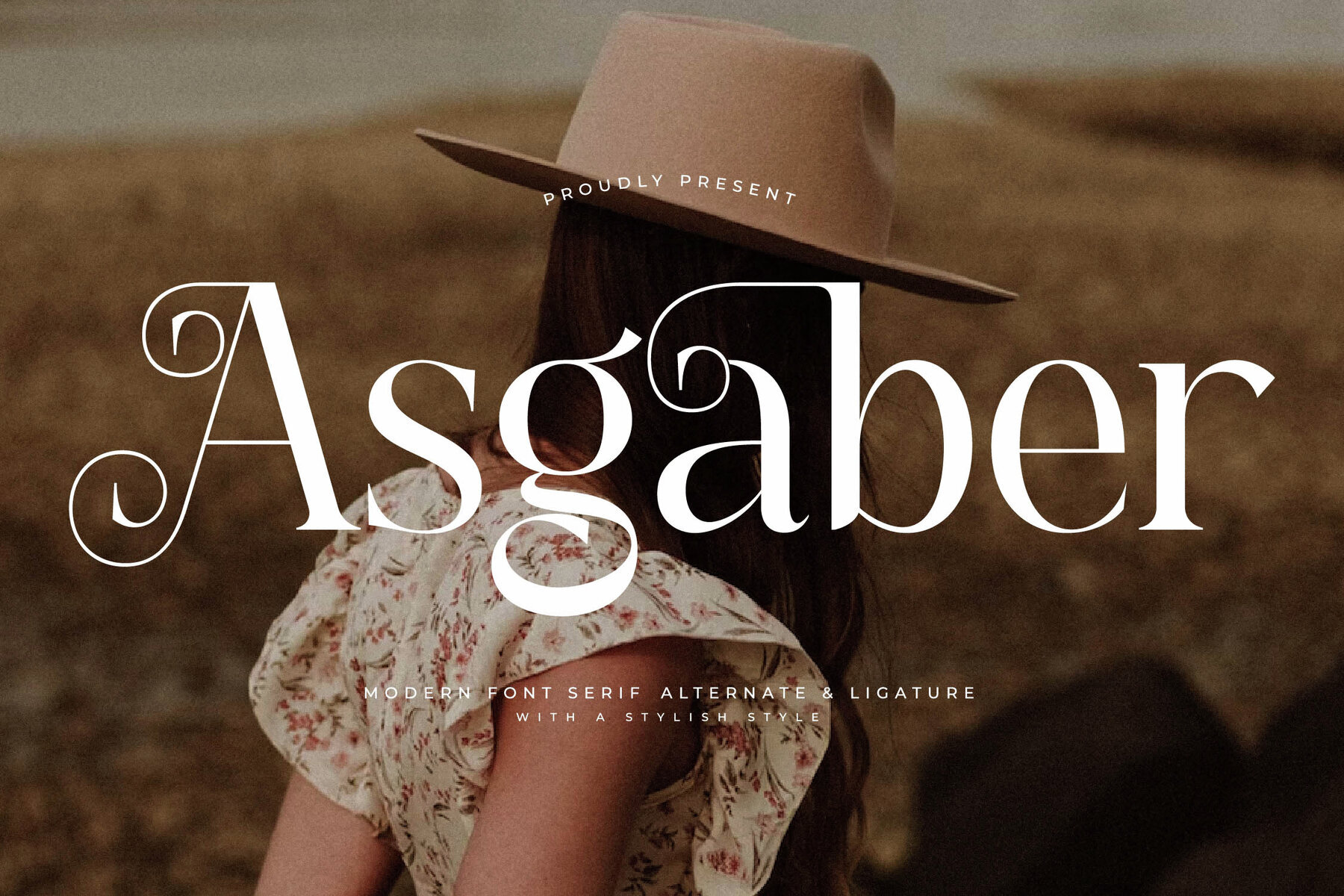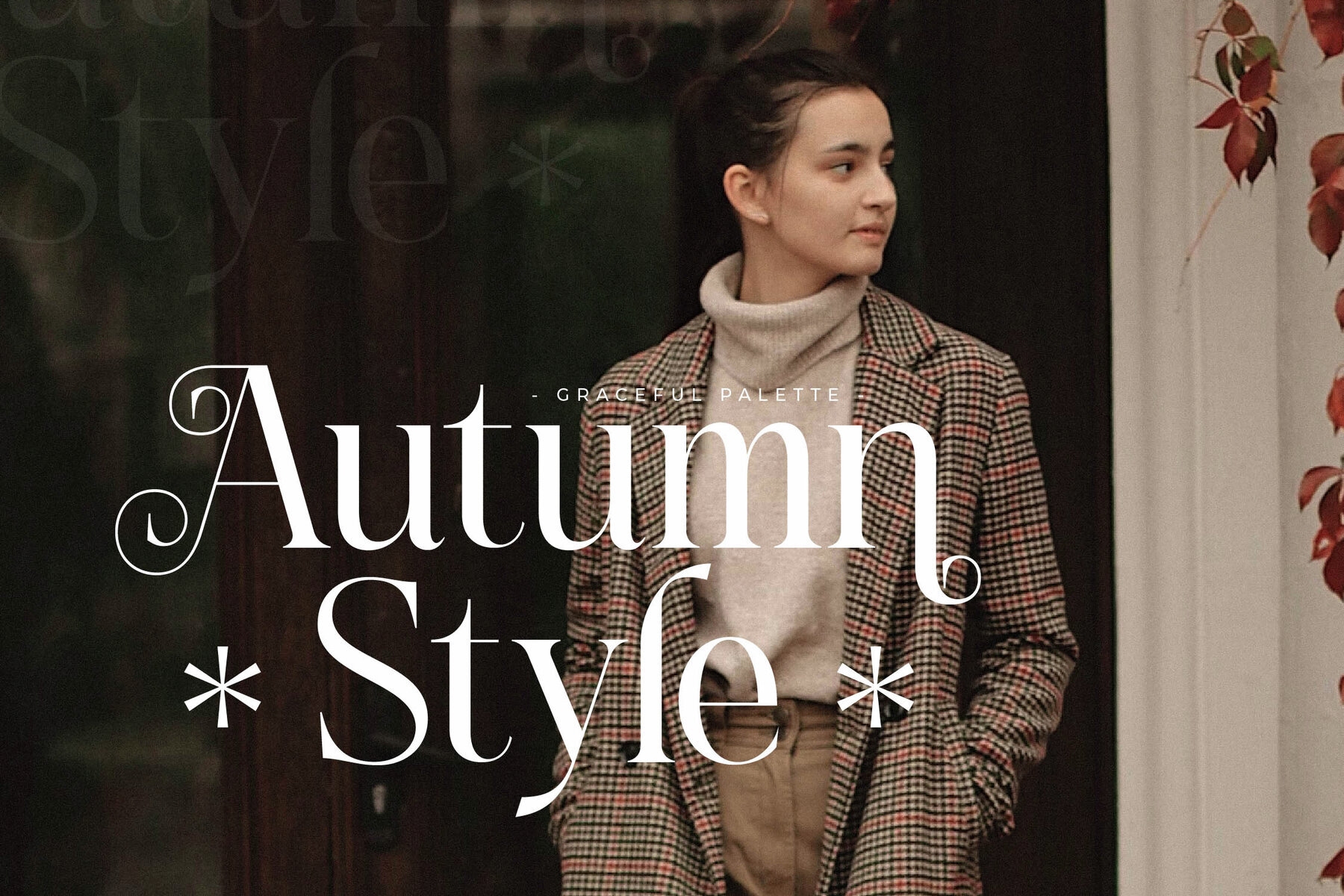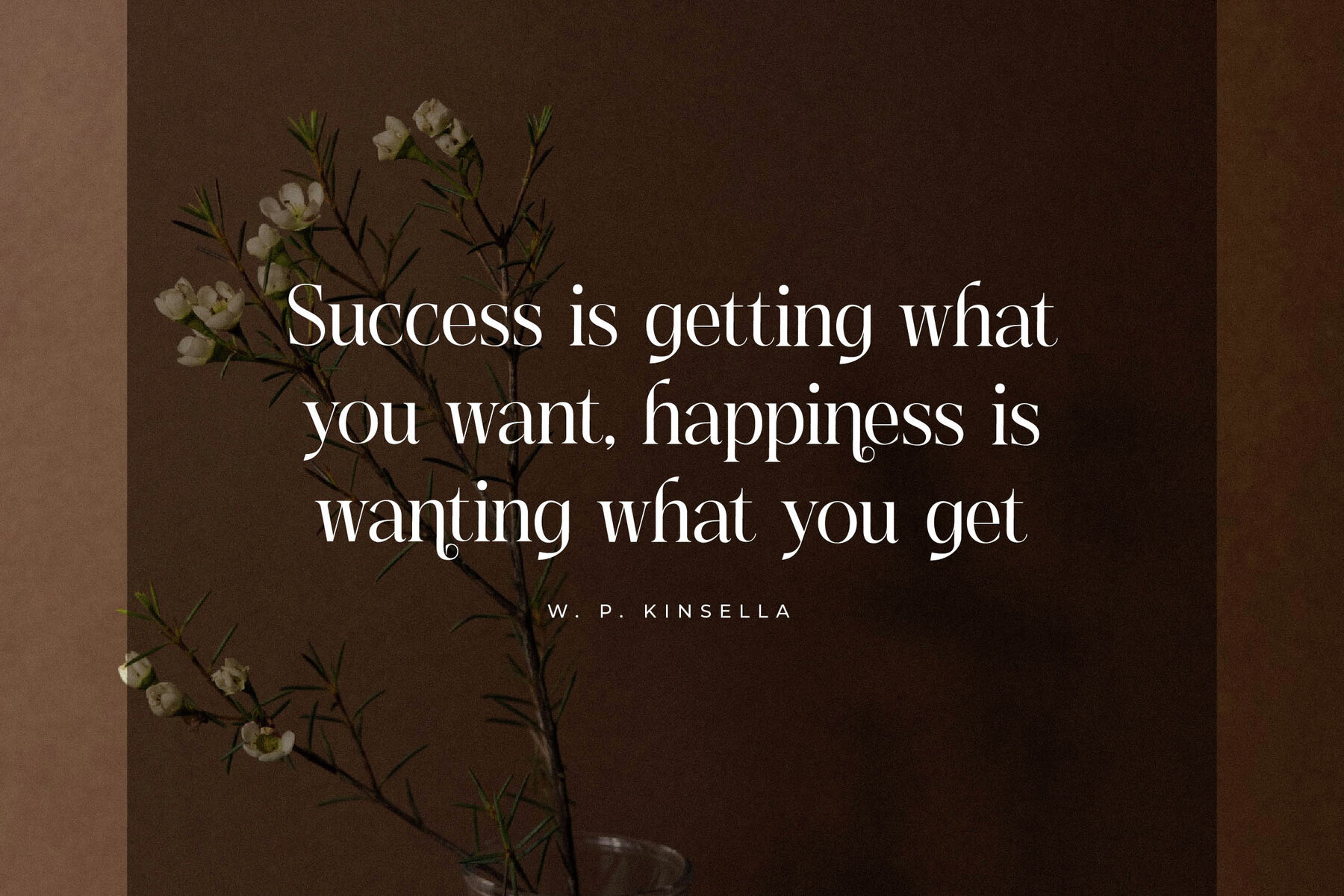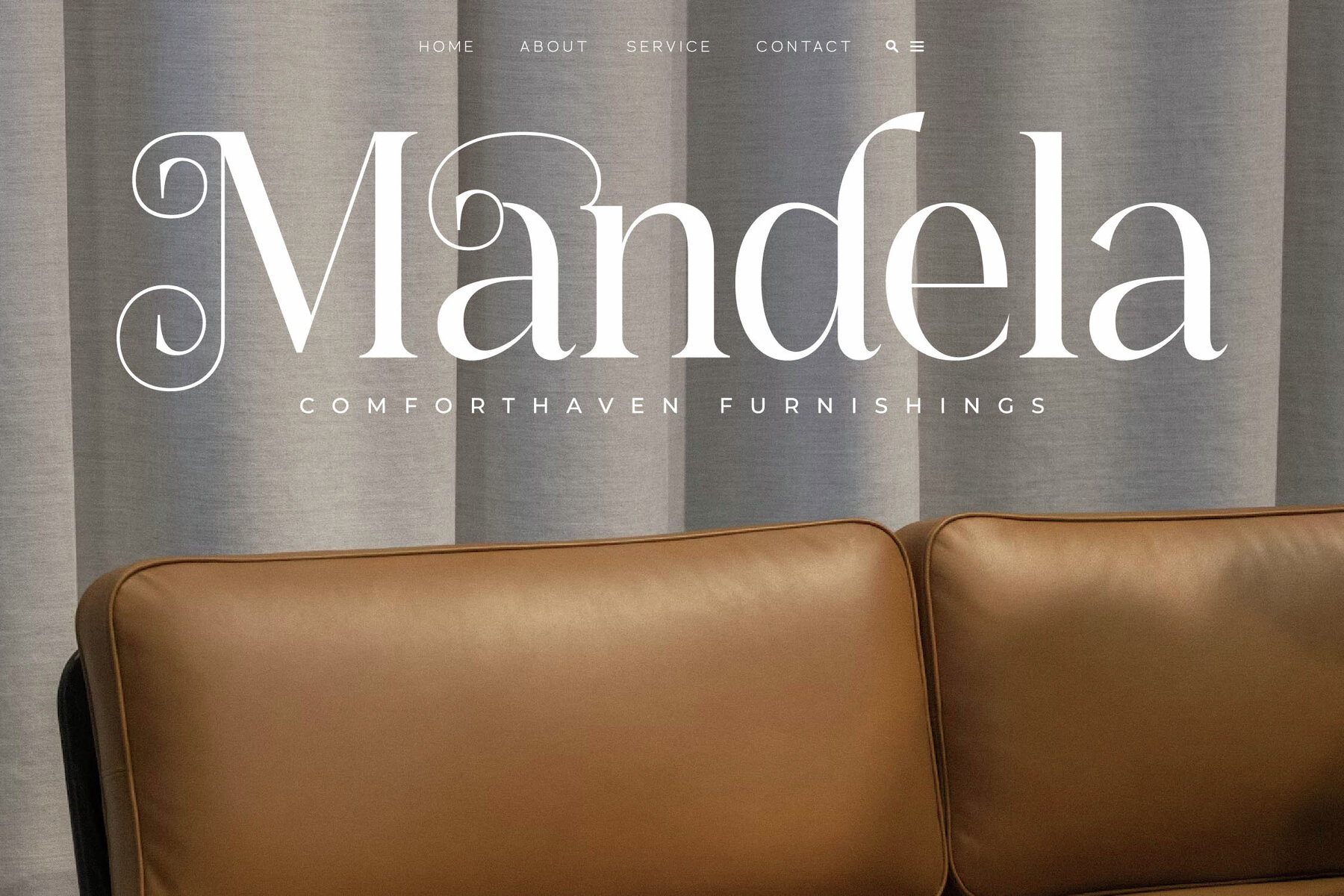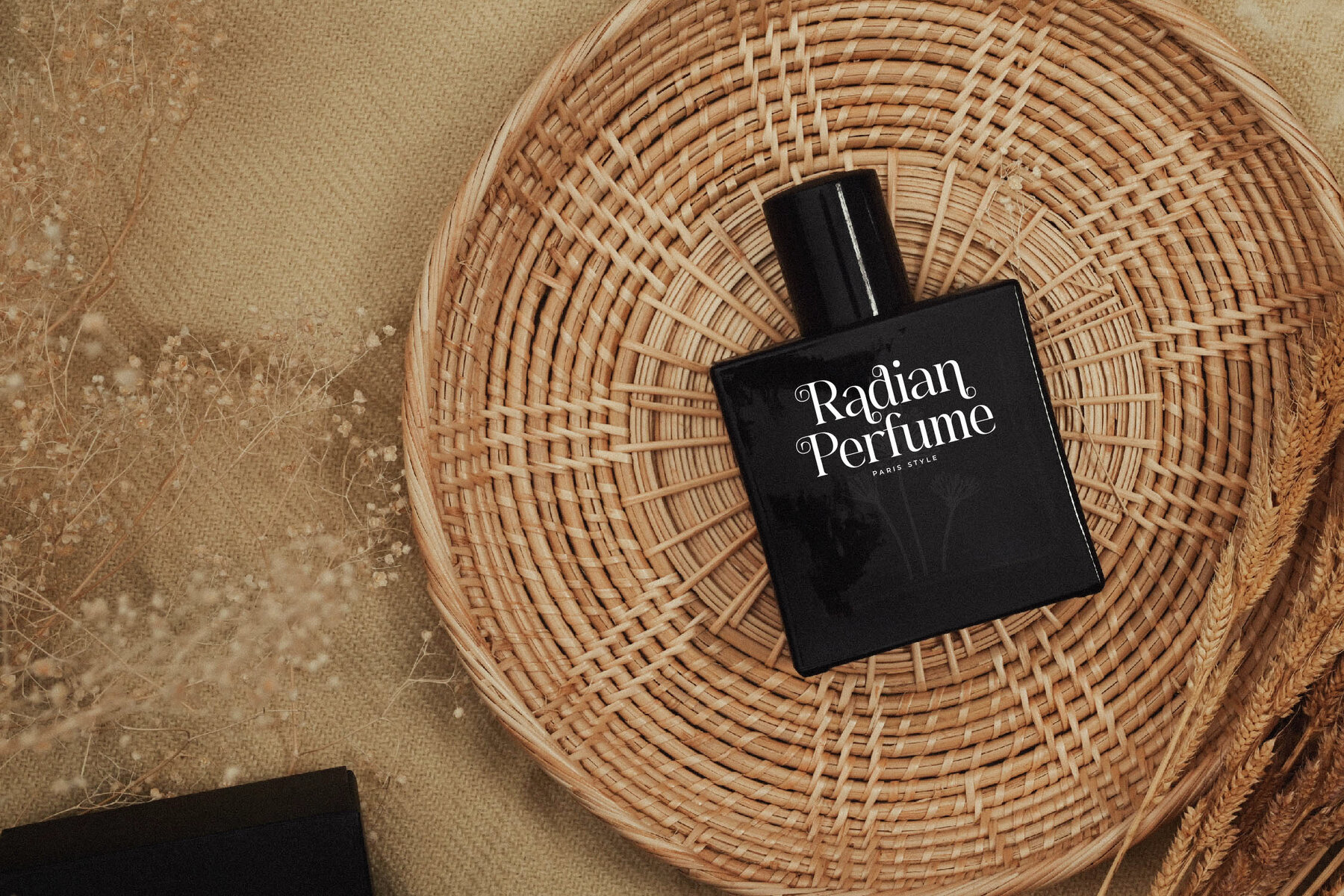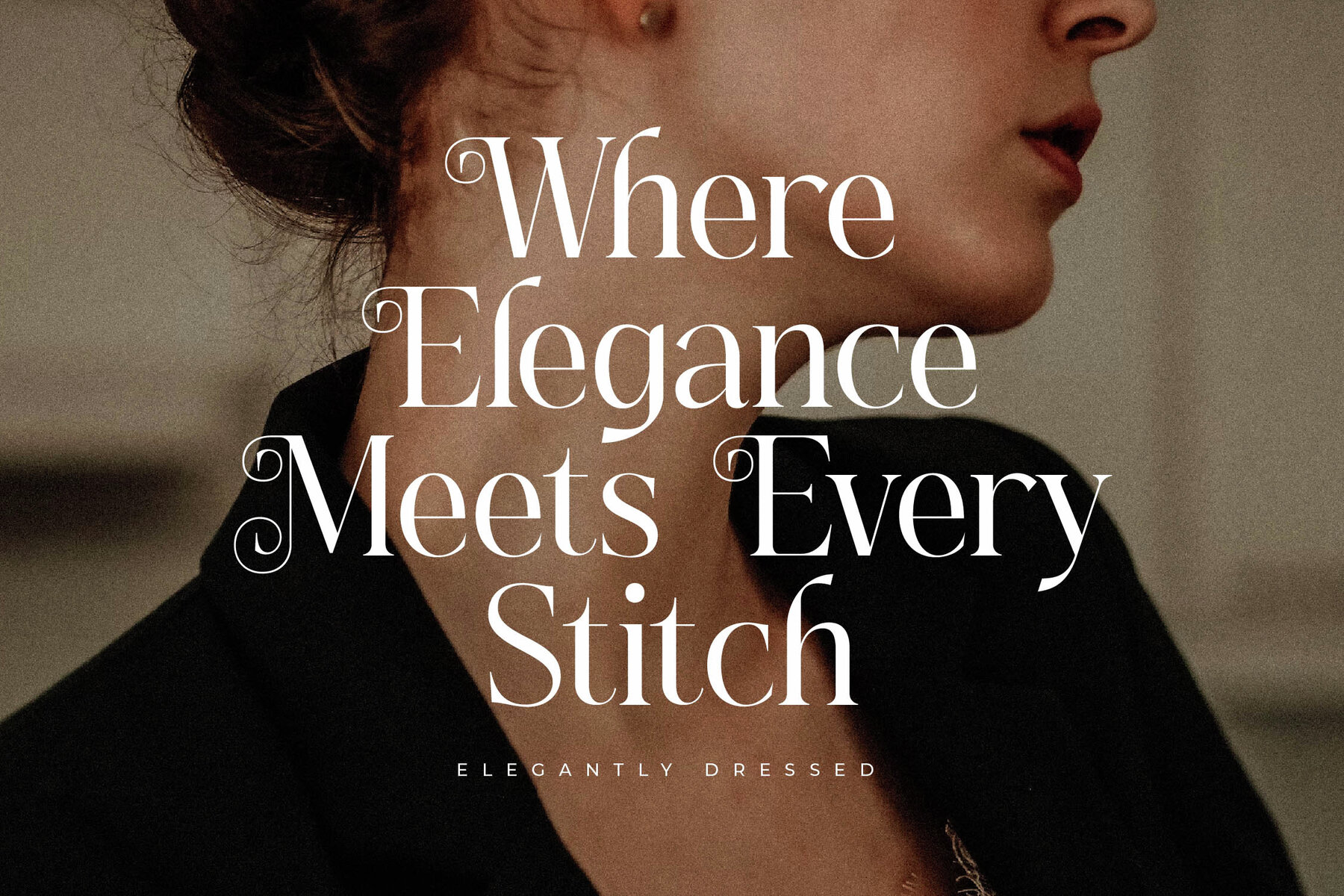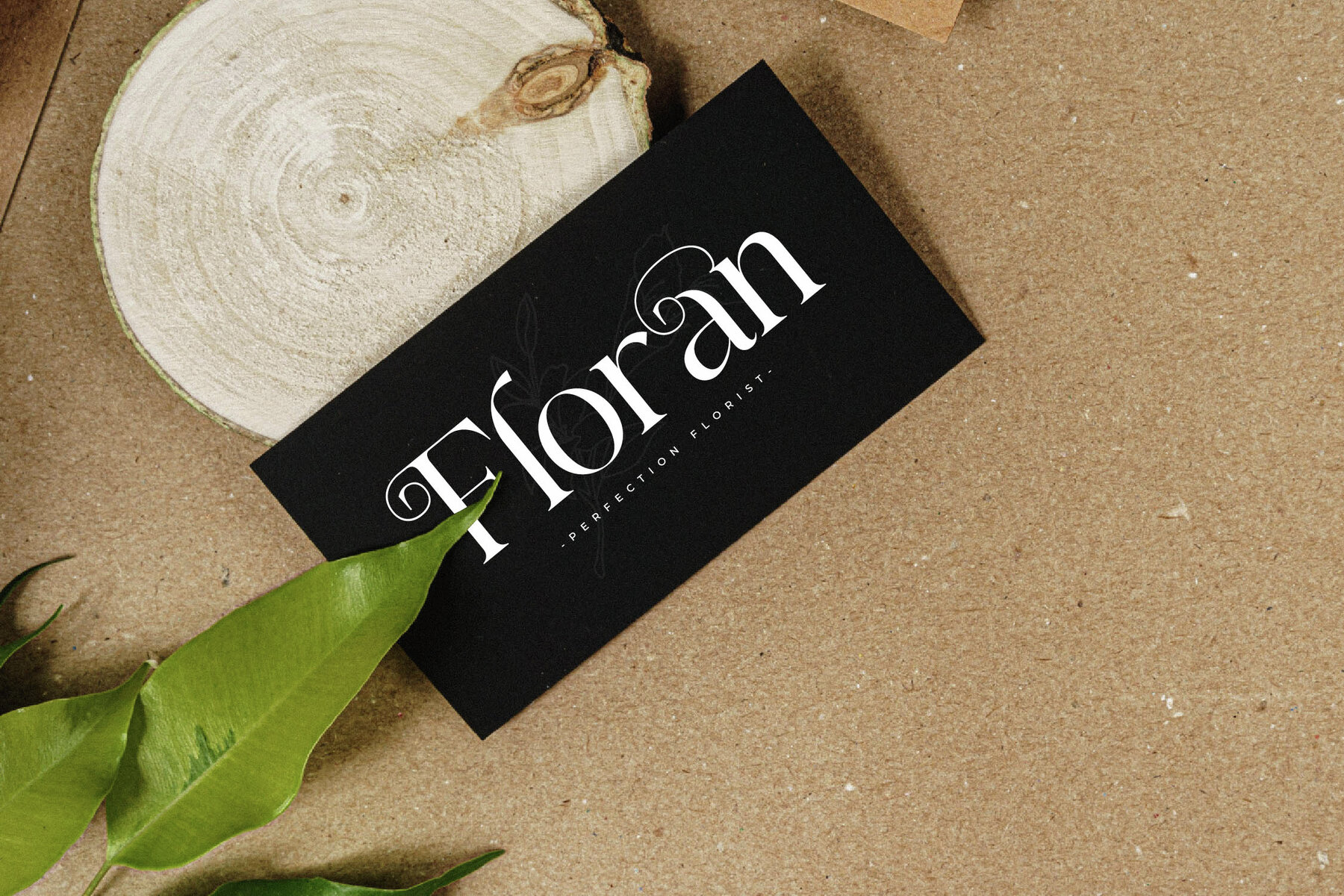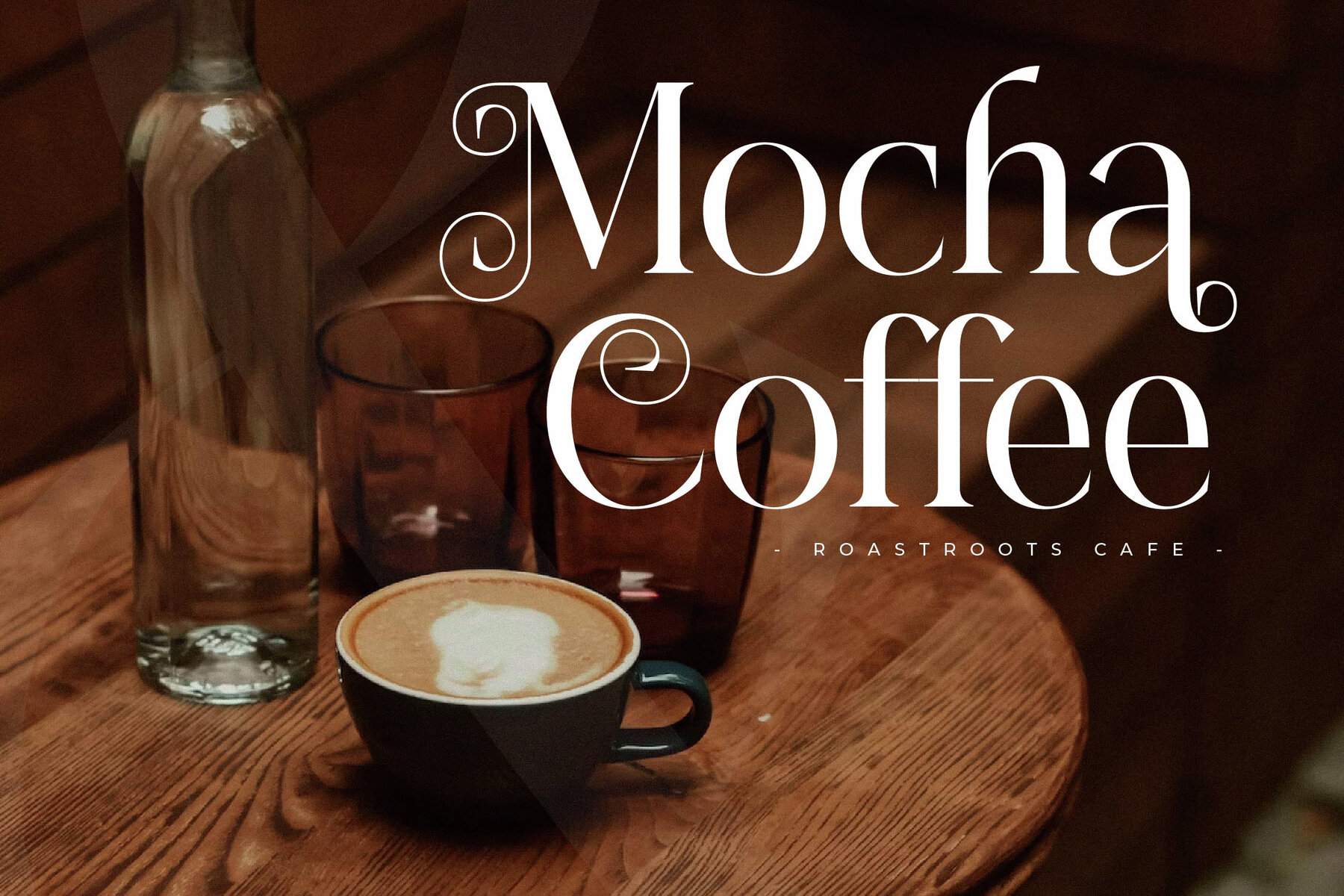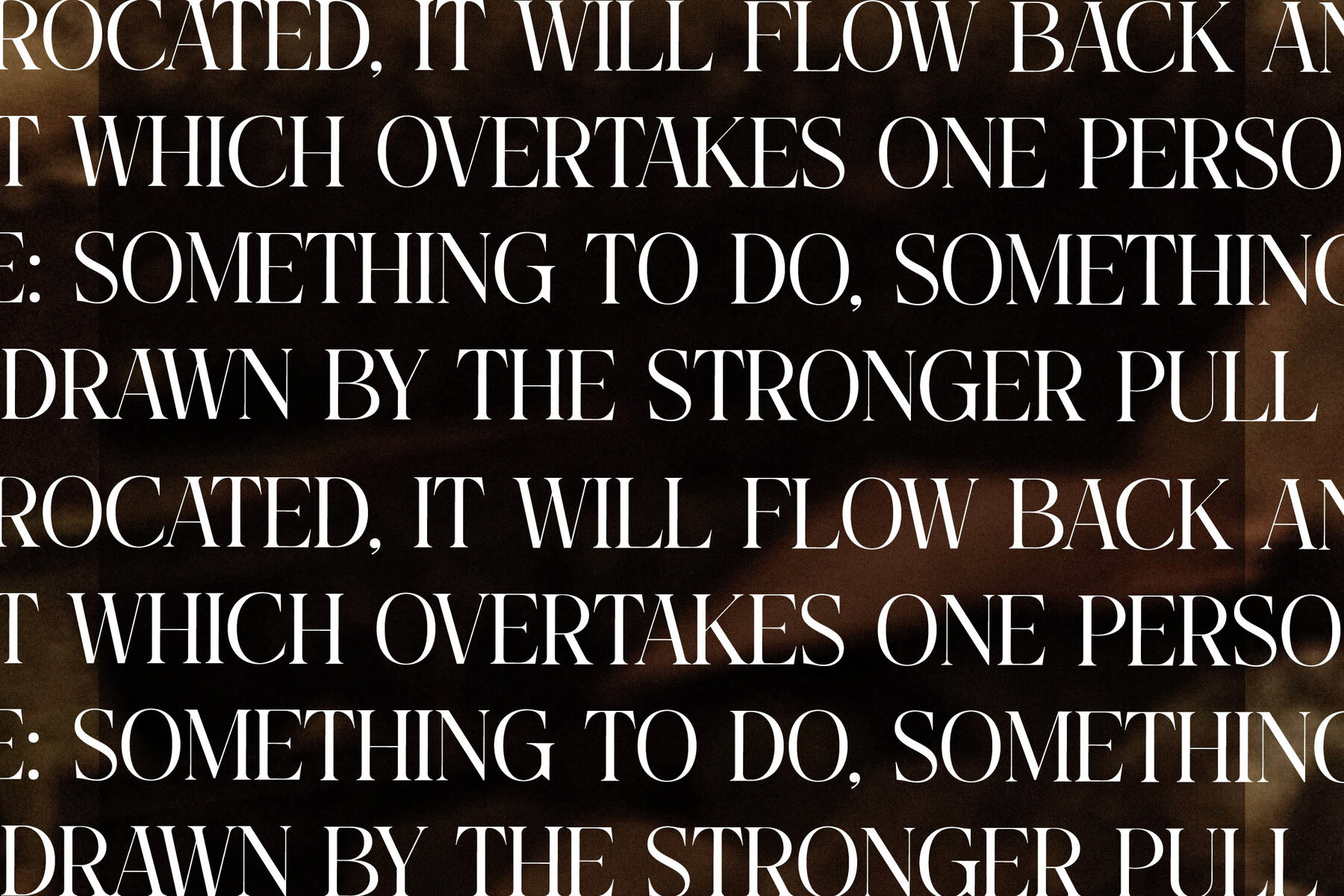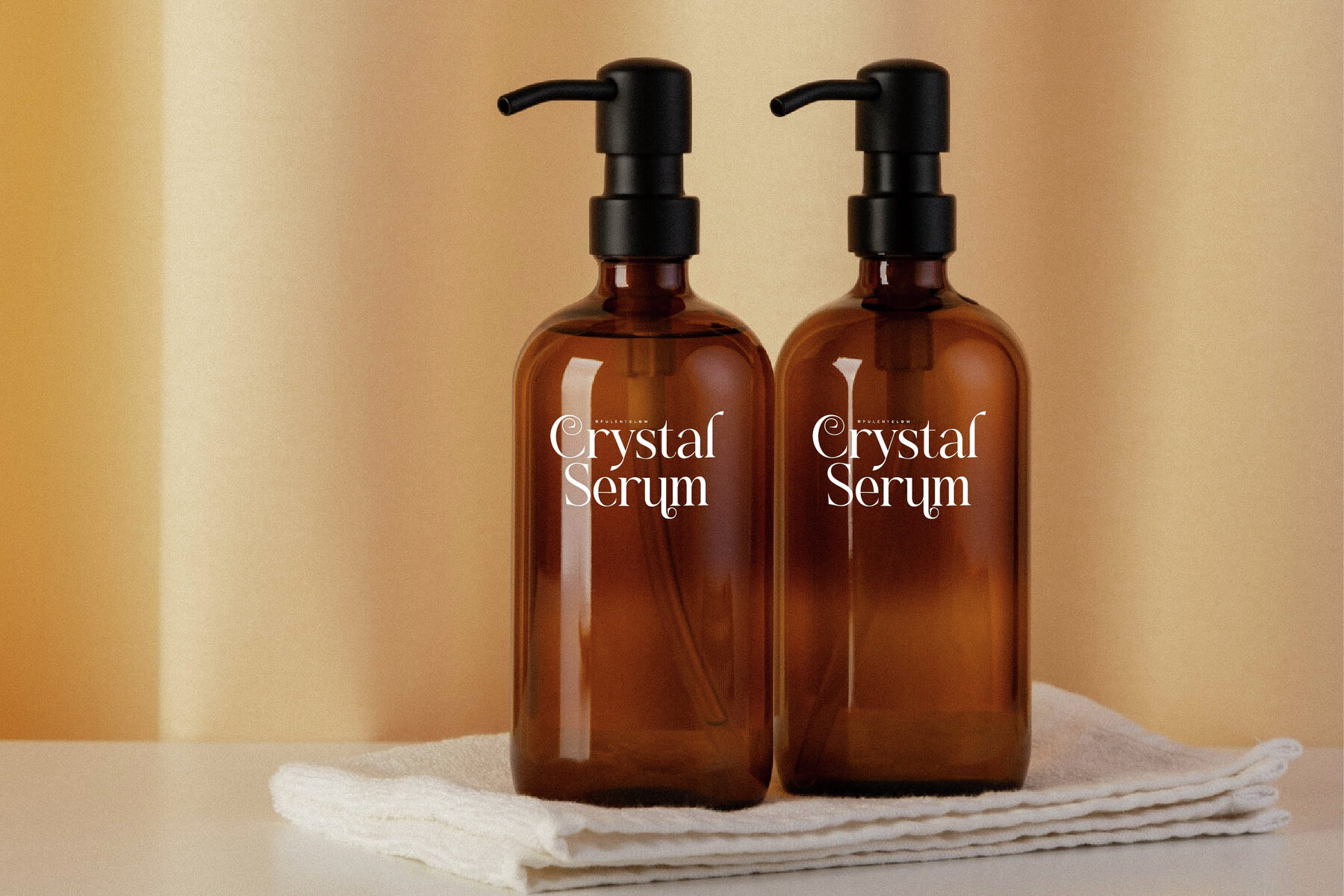
Asgaber Font
Introducing the Asgaber Typeface, a distinguished serif font crafted by Storytype Studio. This typeface marries modern aesthetics with classic charm, making it an ideal choice for adding a touch of luxury to logos, book or movie titles, fashion brands, magazines, clothing designs, and more. Its versatility and unique style bring a sophisticated edge to any project.Asgaber Typeface: Timeless Elegance